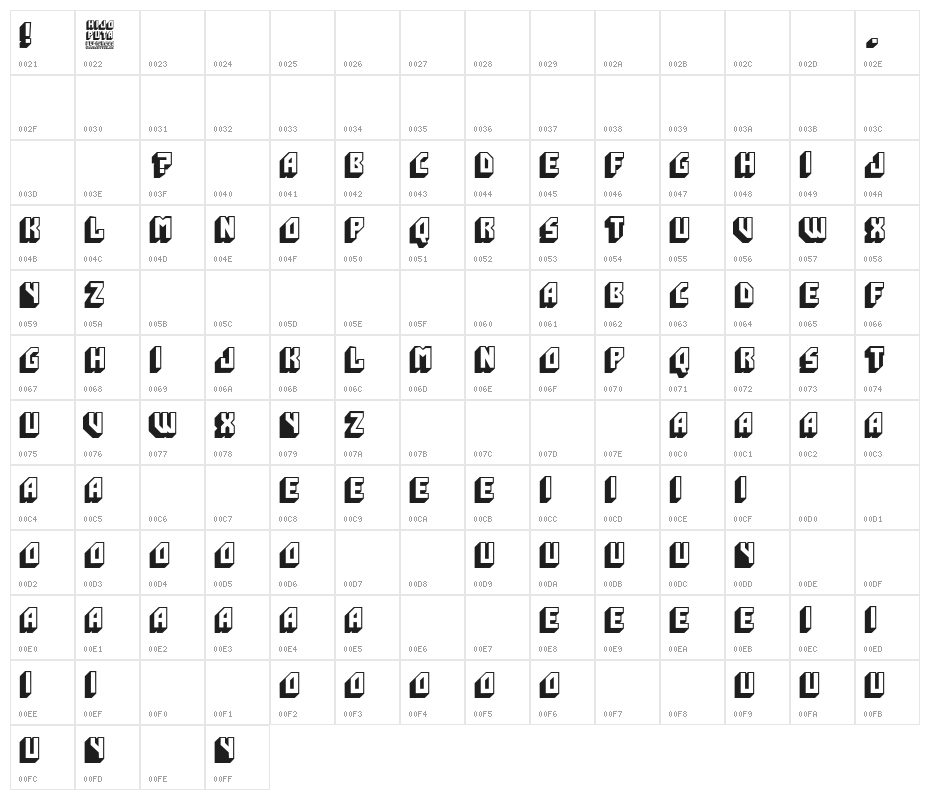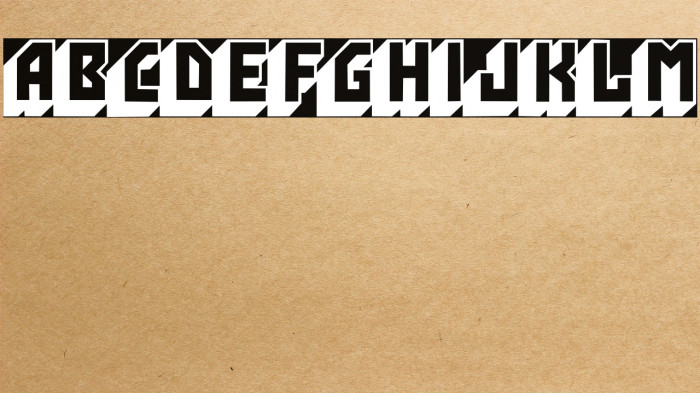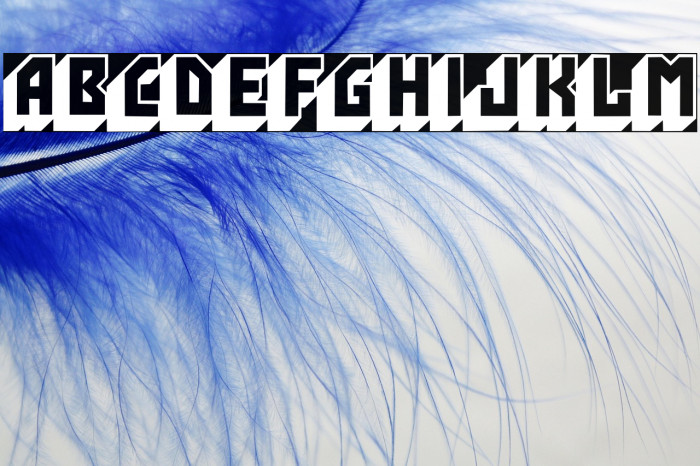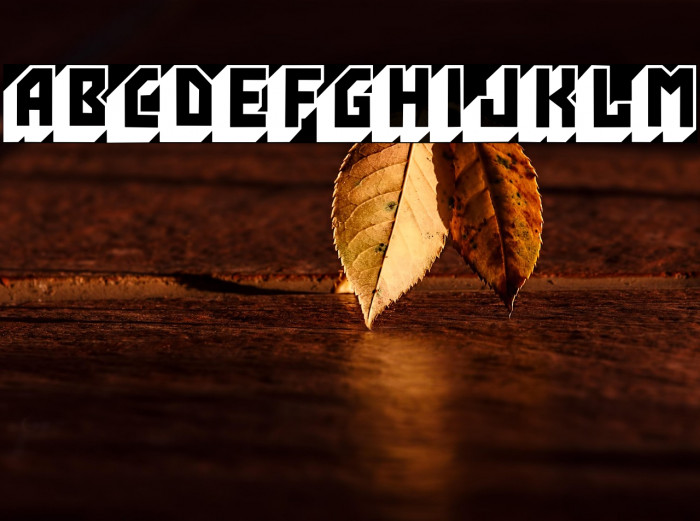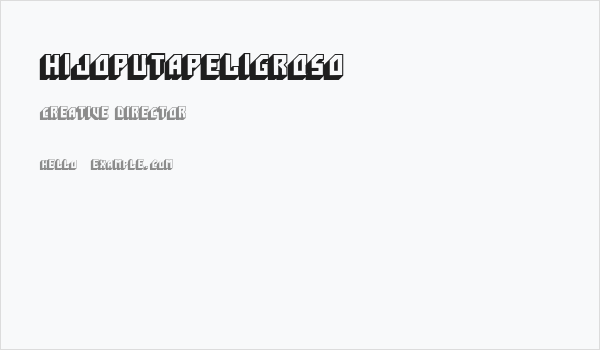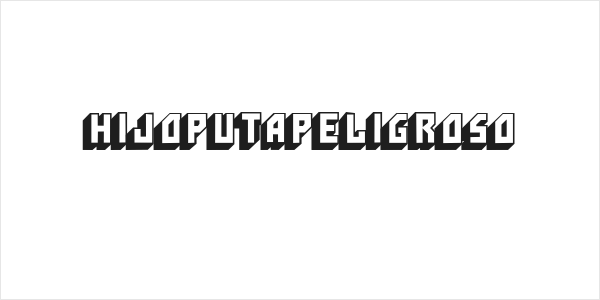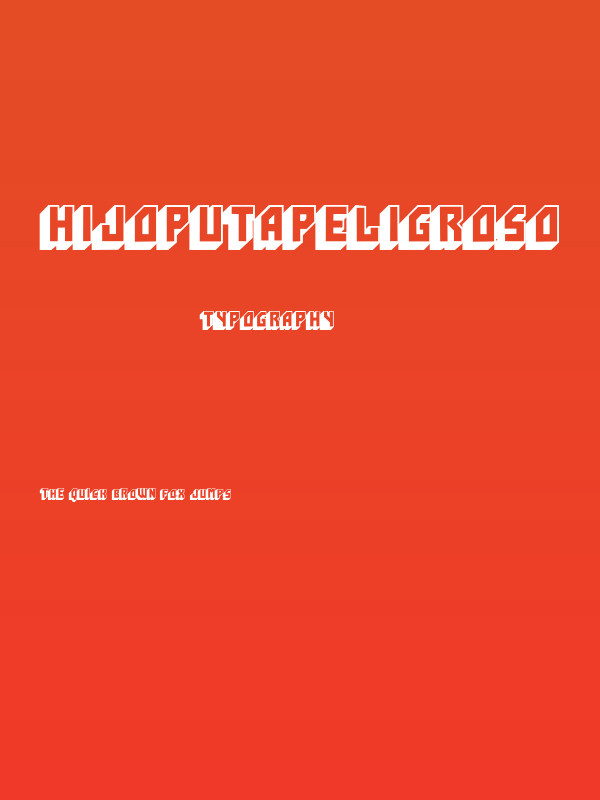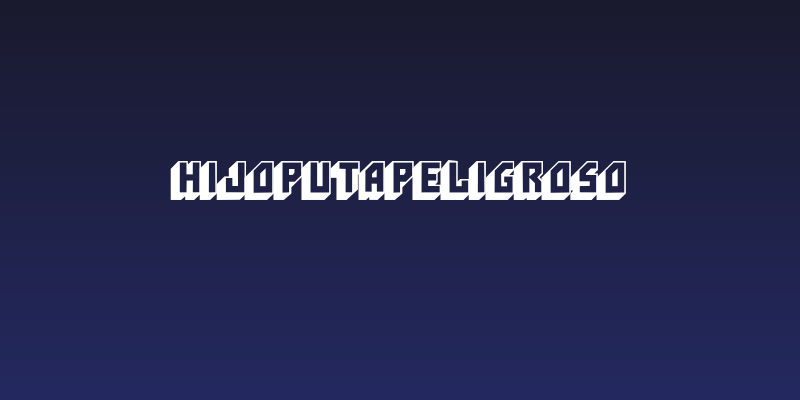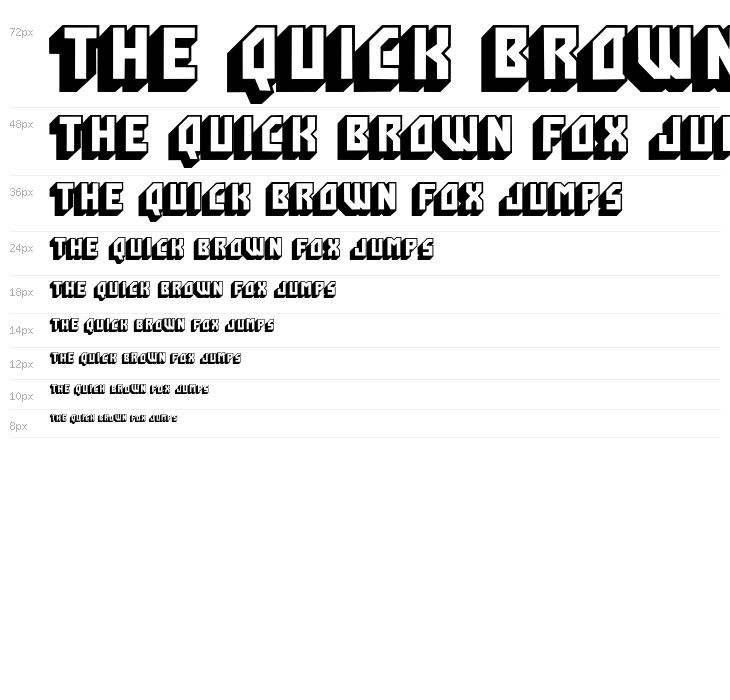
HijoPutaPeligroso Font
HijoPutaPeligroso Description
This font features a bold, three-dimensional design with a strong, impactful presence. The characters are blocky and geometric, with sharp angles and a shadow effect that gives them a sense of depth and weight. The uppercase letters are consistent in height, creating a uniform appearance. The style is reminiscent of retro or vintage designs, often seen in old-school video games or comic books. The font's boldness and unique 3D effect make it ideal for attention-grabbing headlines or logos.
| Proposed Projects | Ideal for retro-themed posters, video game graphics, comic book titles, and bold branding projects. |